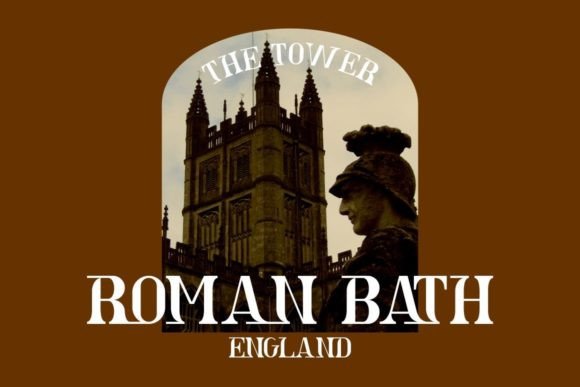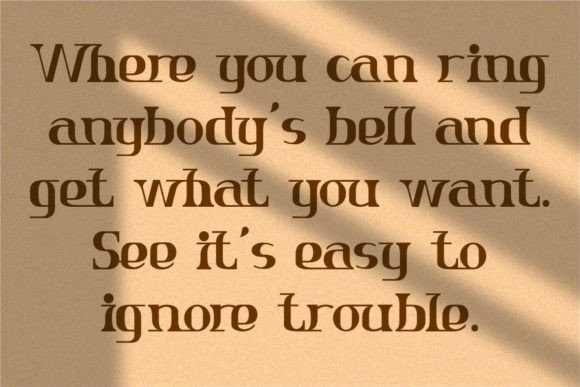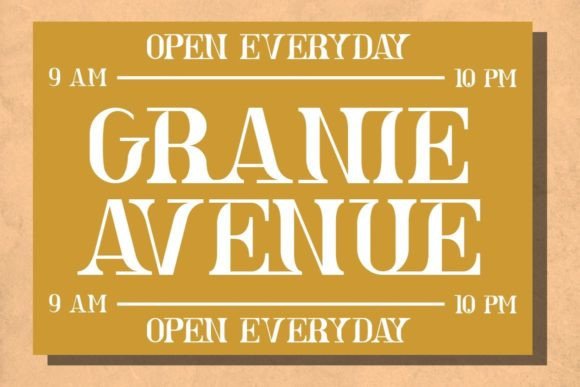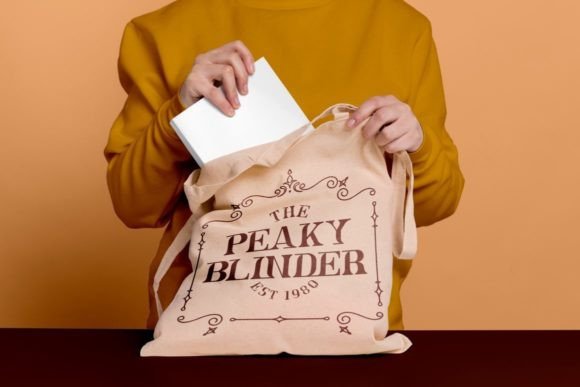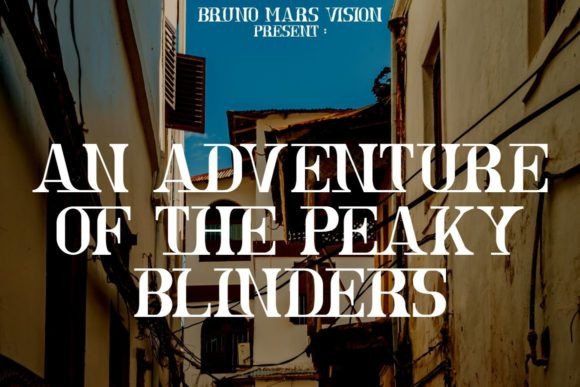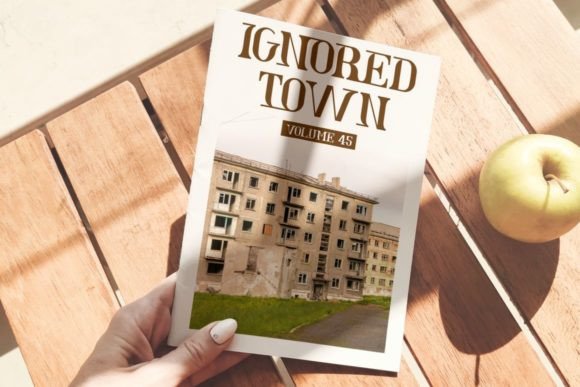
Astra Goldie Font: Elevate Your Designs with Elegance and Sophistication
In the world of typography, fonts play a crucial role in conveying the tone and personality of a design. For designers and crafters looking for a font that exudes elegance, trendiness, and liveliness, Astra Goldie font is an excellent choice. This stunning font is inspired by bold font styles and well-balanced lines, making it perfect for a wide range of design projects.
The Unique Features of Astra Goldie Font
Astra Goldie font boasts a unique set of features that make it stand out from other fonts. Its elegant and lively design is characterized by well-balanced lines and a touch of sophistication. One of the surprises that Astra Goldie font has in store for designers is its alternate styles, which can add an extra layer of beauty to any design project. Whether you’re looking for a professional touch or a more creative approach, Astra Goldie font has got you covered.
Astra Goldie font is incredibly versatile, making it suitable for a wide range of design projects. Whether you’re working on logos, branding, greeting cards, invitation cards, advertisements, titles, headlines, book titles, stickers, packaging, quotes, posters, t-shirts/apparel, billboards, or any other design project, Astra Goldie font is an excellent choice. Its classic and unique design ensures that your work stands out from the crowd and leaves a lasting impression.
Why Designers and Crafters Love Astra Goldie Font
So, what makes Astra Goldie font a favorite among designers and crafters? Here are a few reasons:
- Elegance and Sophistication: Astra Goldie font exudes elegance and sophistication, making it perfect for designs that require a touch of class.
- Trendiness and Liveliness: The font’s trendy and lively design ensures that your work stays fresh and modern.
- Versatility: Astra Goldie font can be used for a wide range of design projects, from logos and branding to posters and billboards.
Tips for Using Astra Goldie Font
Here are a few tips for using Astra Goldie font in your design projects:
- Experiment with Different Sizes: Astra Goldie font looks great in various sizes, from small captions to large headlines.
- Play with Colors: The font’s elegant design pairs well with a wide range of colors, so don’t be afraid to experiment.
- Mix and Match with Other Fonts: Astra Goldie font can be paired with other fonts to create a unique and visually appealing design.
In conclusion, Astra Goldie font is an excellent choice for designers and crafters looking for a font that exudes elegance, trendiness, and liveliness. Its unique features, versatility, and PUA encoding make it perfect for a wide range of design projects. Whether you’re working on a professional project or a personal creative endeavor, Astra Goldie font is sure to elevate your designs and leave a lasting impression.